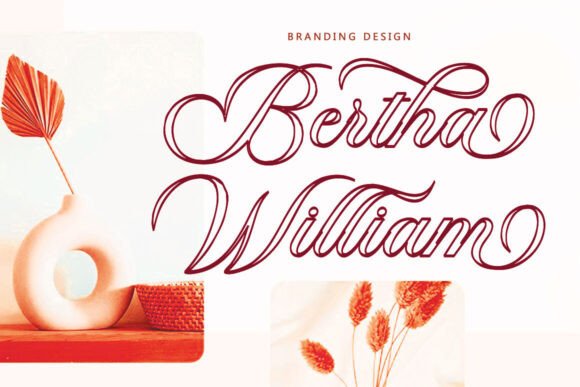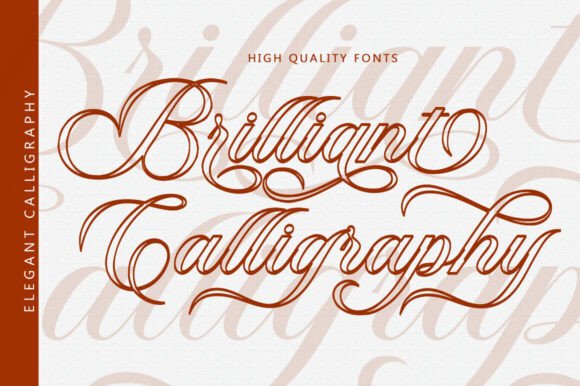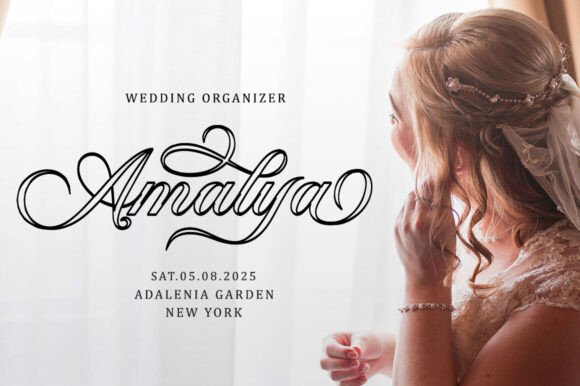
Introduction to Panda Outline Font
As a designer, you know the thrill of stumbling upon the perfect font for your creative project. It’s the moment when everything clicks, and your design takes on a life of its own. For me, that moment came when I discovered the Panda Outline Font – a stunning script font that has become my go-to choice for elegant and sophisticated designs.
With its beautiful character variations and luxurious letter connections, the Panda Outline Font is a true design resource. Its classic copper style with a modern touch makes it perfect for a variety of formal uses, from invitations and labels to restaurant menus and logos. And the best part? It’s easy to read, even on a transparent background, making it a high-quality addition to any design project.
Key Features of Panda Outline Font
- Panda Outline Font is a high-quality design resource that offers a unique and creative way to add panda-themed elements to any project.
- One of the standout features of Panda Outline Font is its transparent background, allowing users to easily place it over any image or design without any distractions.
- With its high-resolution design, Panda Outline Font is perfect for use in print and digital projects, ensuring that it looks crisp and clear on any medium.
- Panda Outline Font is a great resource for designers who want to add a fun and playful touch to their work, making it an ideal choice for projects that require a lighthearted and creative approach.
- The font’s outline design makes it easy to customize and edit, allowing users to modify it to fit their specific design needs.
Honest Review: Panda Outline Font
I recently had the chance to work with the Panda Outline Font, and I have to say it’s been a game-changer for my creative project. This font is perfect for designers who want to add a touch of whimsy and fun to their designs. ✨
- Unique Design: The Panda Outline Font has a distinctive design that stands out from the crowd. The outline style gives it a charming and playful feel that’s hard to find in other fonts.
- High Quality: The font is well-designed and high-quality, making it perfect for any design project. I especially love how it looks on a transparent background – it really makes the design pop.
However, there are a few limitations to consider. ⚠️ The font may not be suitable for all types of projects, especially those that require a more formal or serious tone. Additionally, the font may not be as versatile as some other design resources, but for the right project, it’s a great choice.
Panda Outline Font
The Panda Outline Font is a unique and creative design resource that can add a touch of elegance to any project. With its high-quality and transparent background, it’s perfect for creating visually appealing designs.
Tips for Getting the Most Out of Panda Outline Font
To get the most out of the Panda Outline Font, use it in conjunction with other design elements, such as images and text, to create a visually appealing design. Experiment with different font sizes and colors to find the perfect combination for your project.